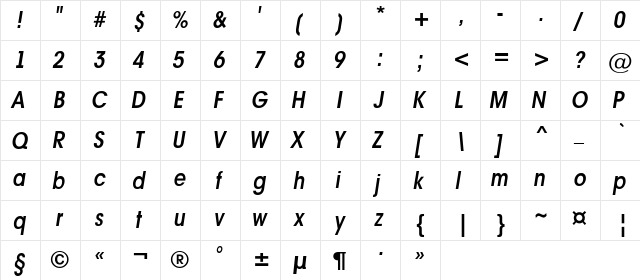
a_AvanteLtNr SemiBoldItalic
Design Context for a_AvanteLtNr Typeface
a_AvanteLtNr offers clean, dependable letterforms without strong stylistic allegiance, making it a practical choice for designers who need flexibility. The slanted form adds forward momentum and visual energy. The heavy weight commands attention and anchors typographic hierarchies.
Pro Tip: Use a_AvanteLtNr for emphasis, pull quotes, and subheadings where its slanted energy can add rhythm to the layout.